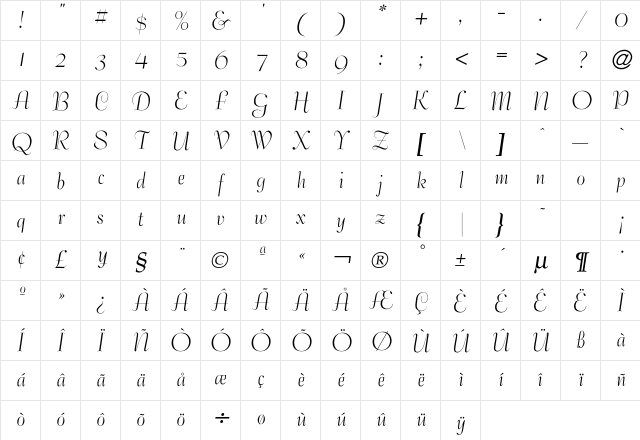
Bernhard Tango
Design Context for Bernhard
Bernhard is a composed and adaptable typeface that performs quietly and consistently across a wide range of design contexts.